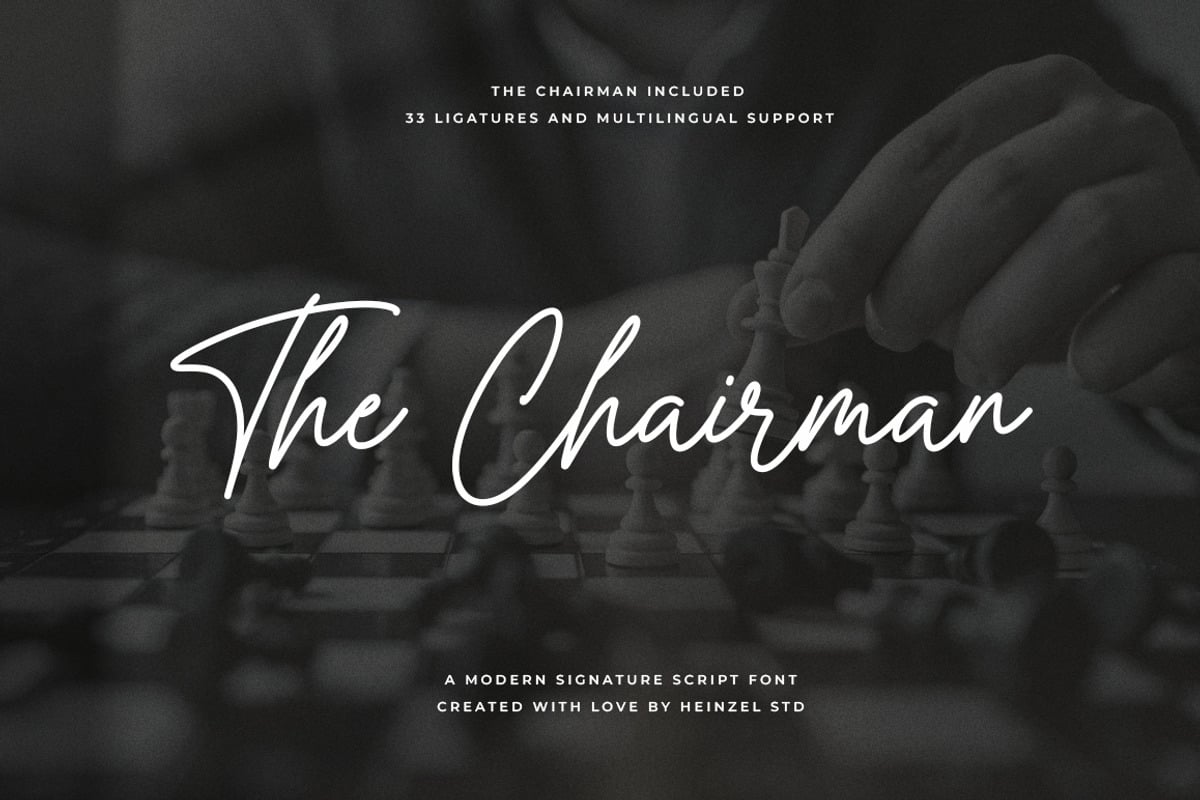
The Chairman Modern Signature Font
Command attention with a typeface that speaks the language of luxury, prestige, and refined elegance.
The Chairman Modern Signature Font is a sophisticated script typeface crafted to evoke the authority and grace of a distinguished signature. Its flowing letterforms strike the perfect balance between timeless charm and contemporary style, making it an ideal choice for high-end branding, upscale stationery, and exclusive event materials.
Whether you're building a luxury brand identity, designing wedding invitations, or crafting a standout logo, The Chairman brings instant refinement to any project. Its versatile character makes it equally at home on business cards, product packaging, fashion labels, and formal event collateral.
- Uppercase and Lowercase letters
- Numerals and Punctuation
- 33 Ligatures
- Multilingual support for 21 languages: Afrikaans, Basque, Breton, Catalan, Danish, Dutch, English, Finnish, French, Gaelic (Irish, Scots), German, Icelandic, Indonesian, Irish, Italian, Norwegian, Portuguese, Saami (Southern), Spanish, Swahili, and Swedish